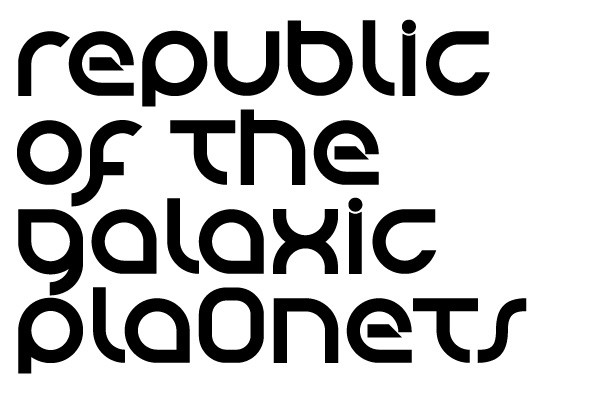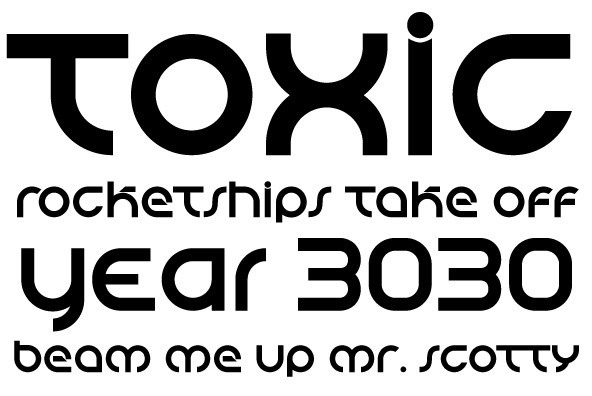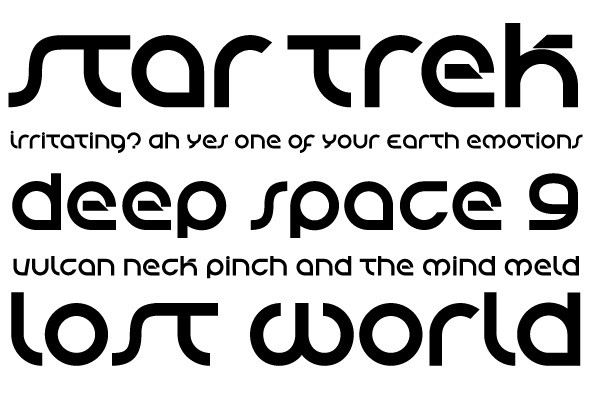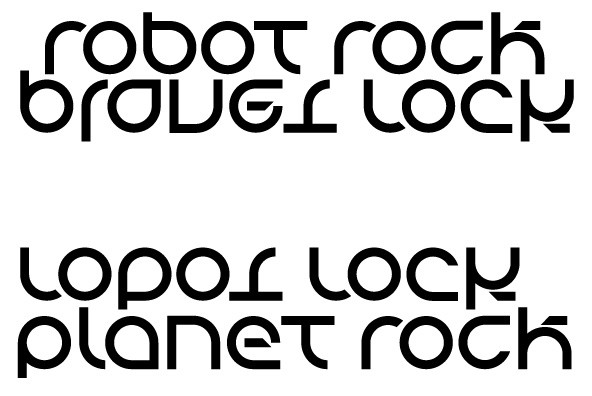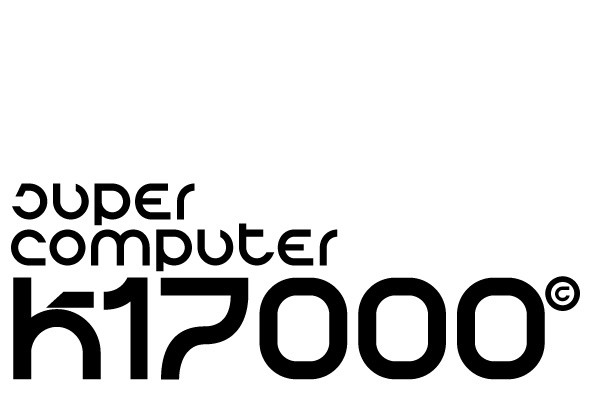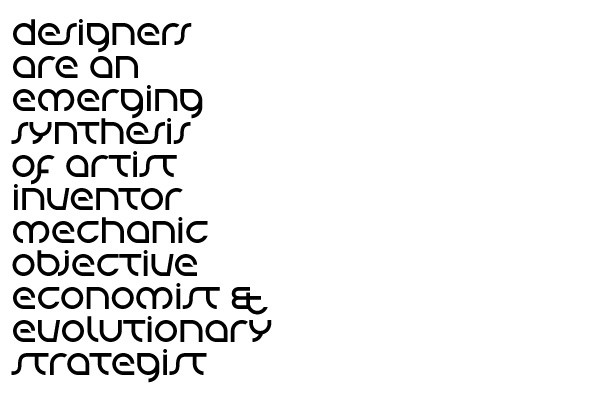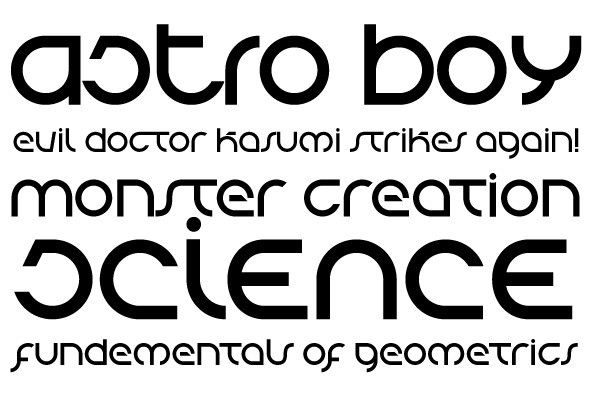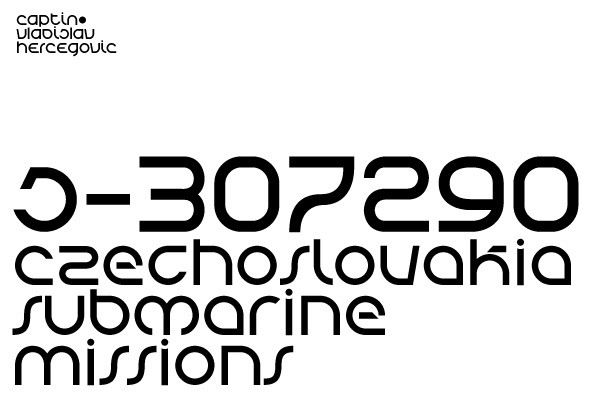
Tierra is a 2 weight font with unique characters and a contemporary techno style. Tierra's geometric forms flow together to create a smooth, undulating rhythm sure to draw attention.